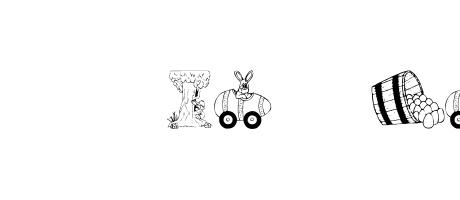
DT Hip Hop
DT Hip Hop is a playful, hand-drawn font. Its charm lies in its uneven lines and whimsical details. Each character feels uniquely crafted, like a cartoon illustration. It's perfectly suited for children's books, Easter projects, or anything needing a fun, slightly quirky feel. The style evokes a sense of joyful energy.